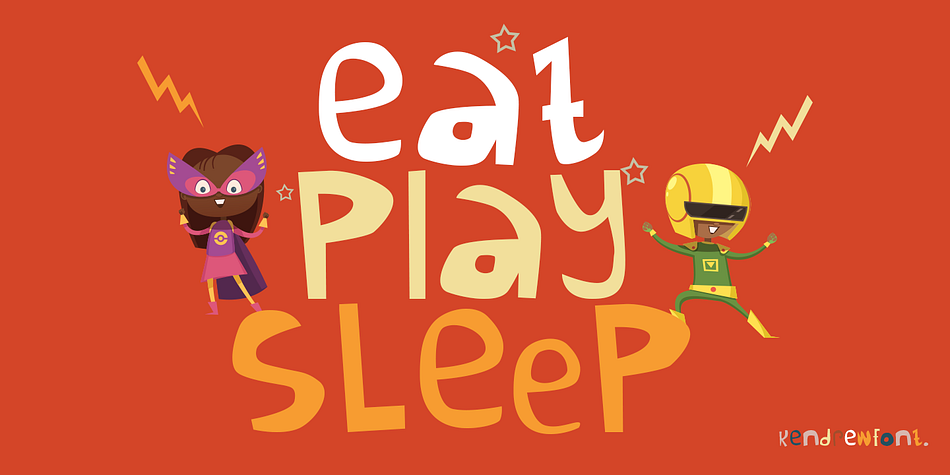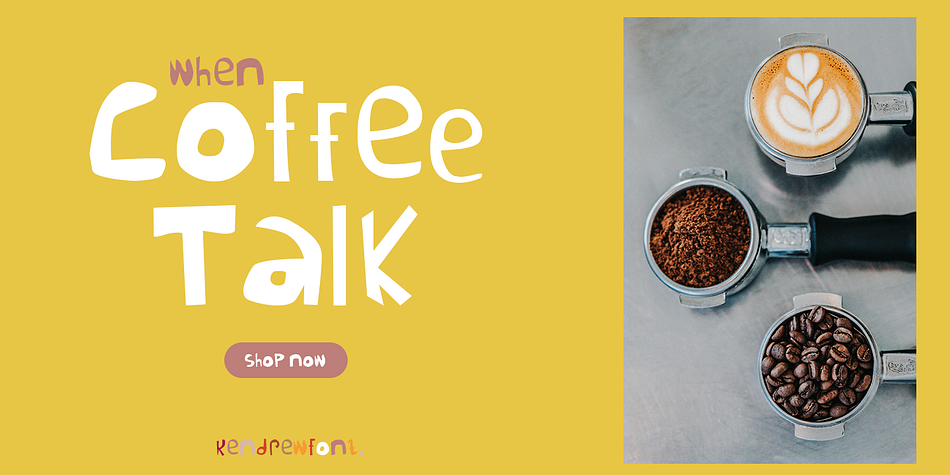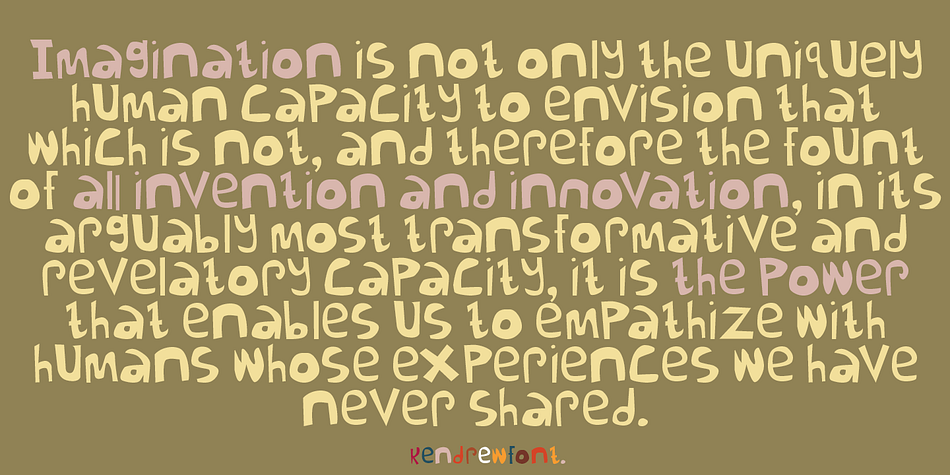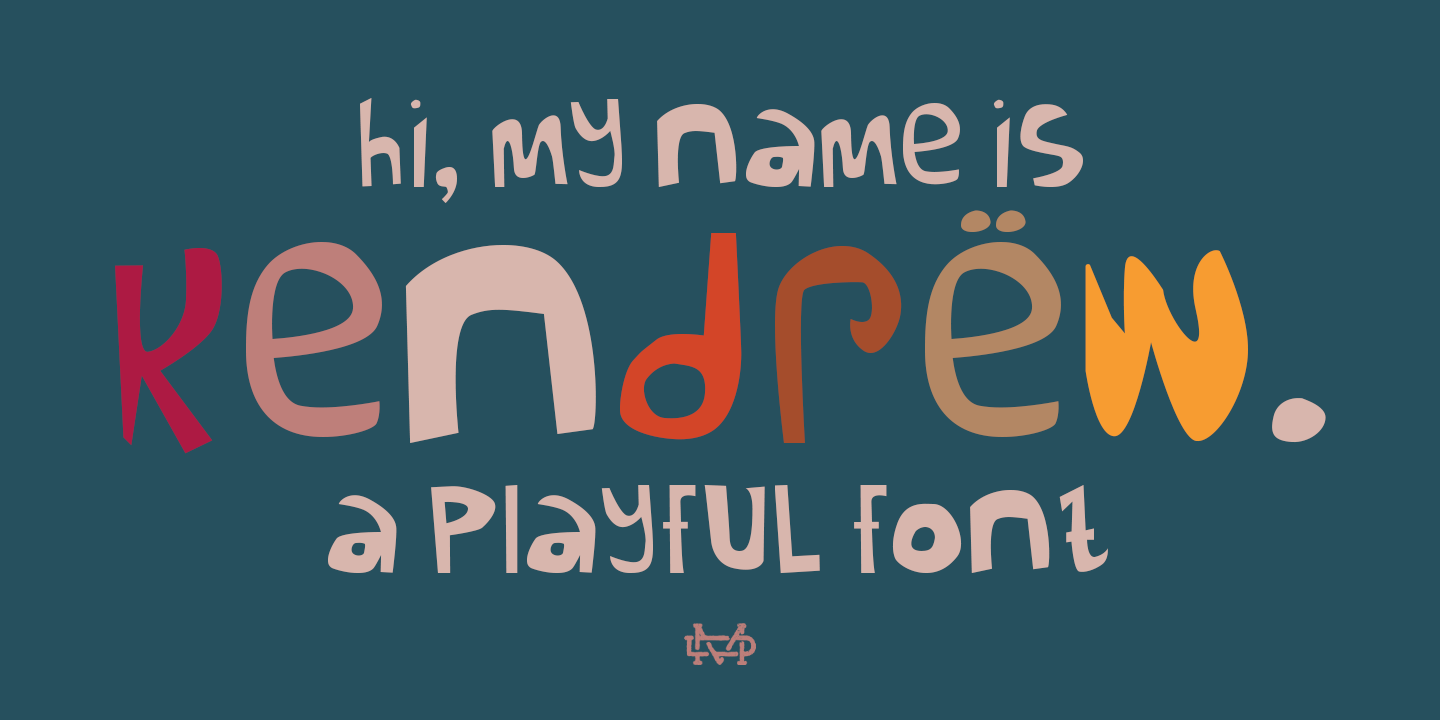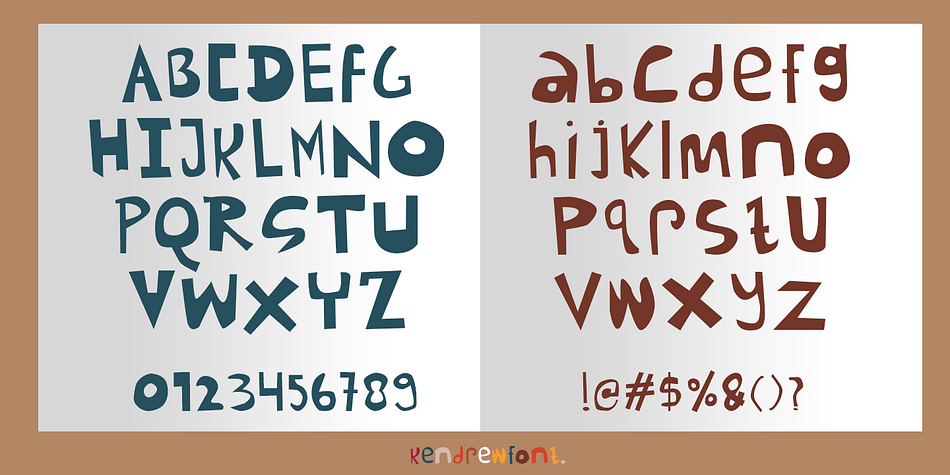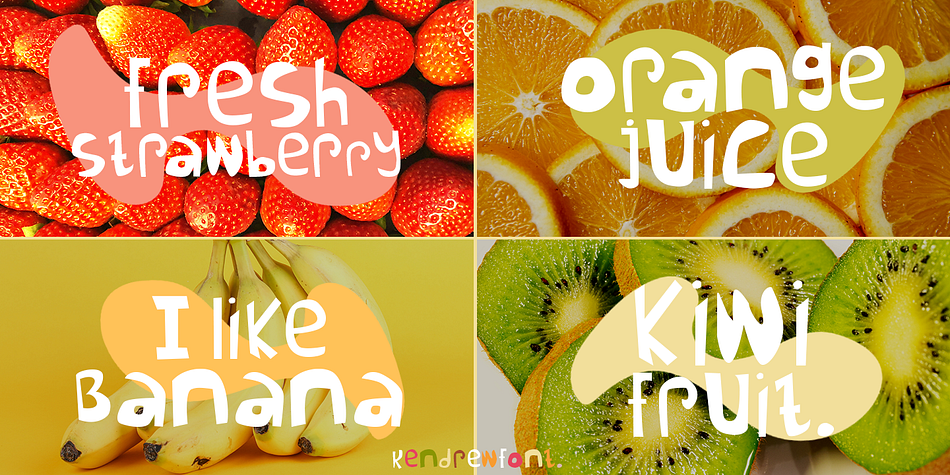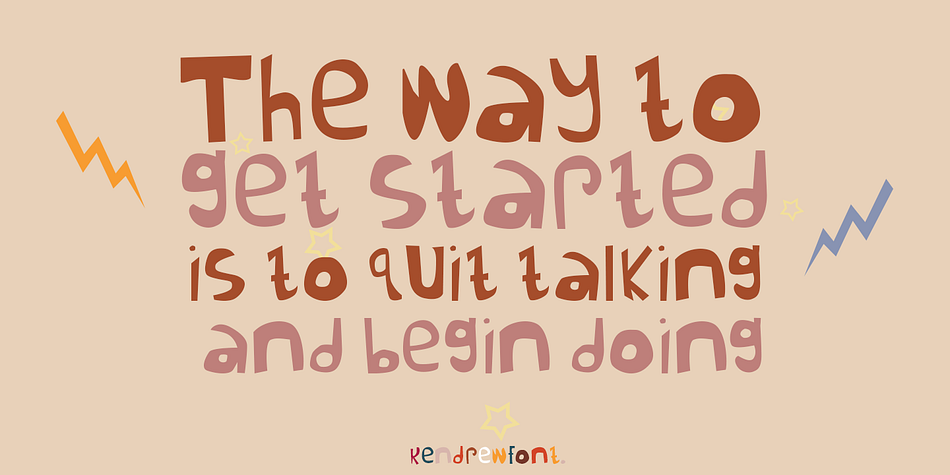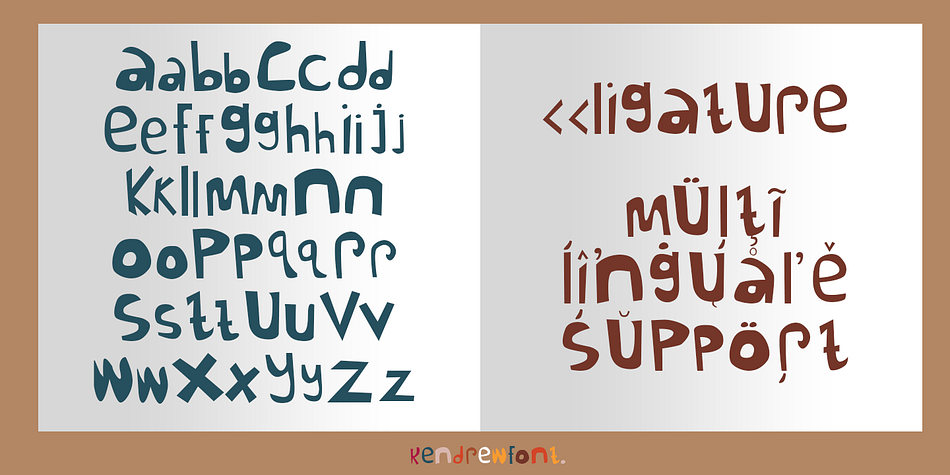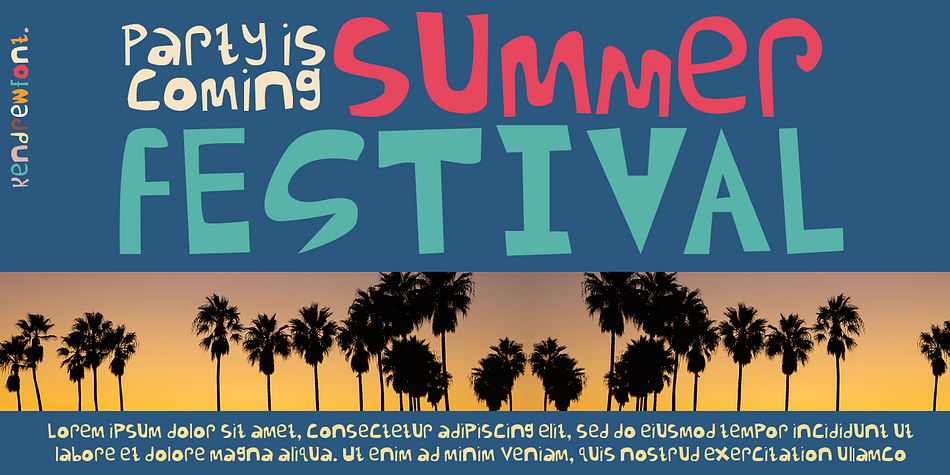
Kendrew Font
Designed by Suandana Ipandemade, Kendrew Font is an arts and crafts, hand display and kids font family published by madeDeduk.
Introducing The Kendrew is a kids handwritten playful font and will be perfect for book, title branding, product packaging, invitation, quotes, t-shirt, label, poster, logo etc.